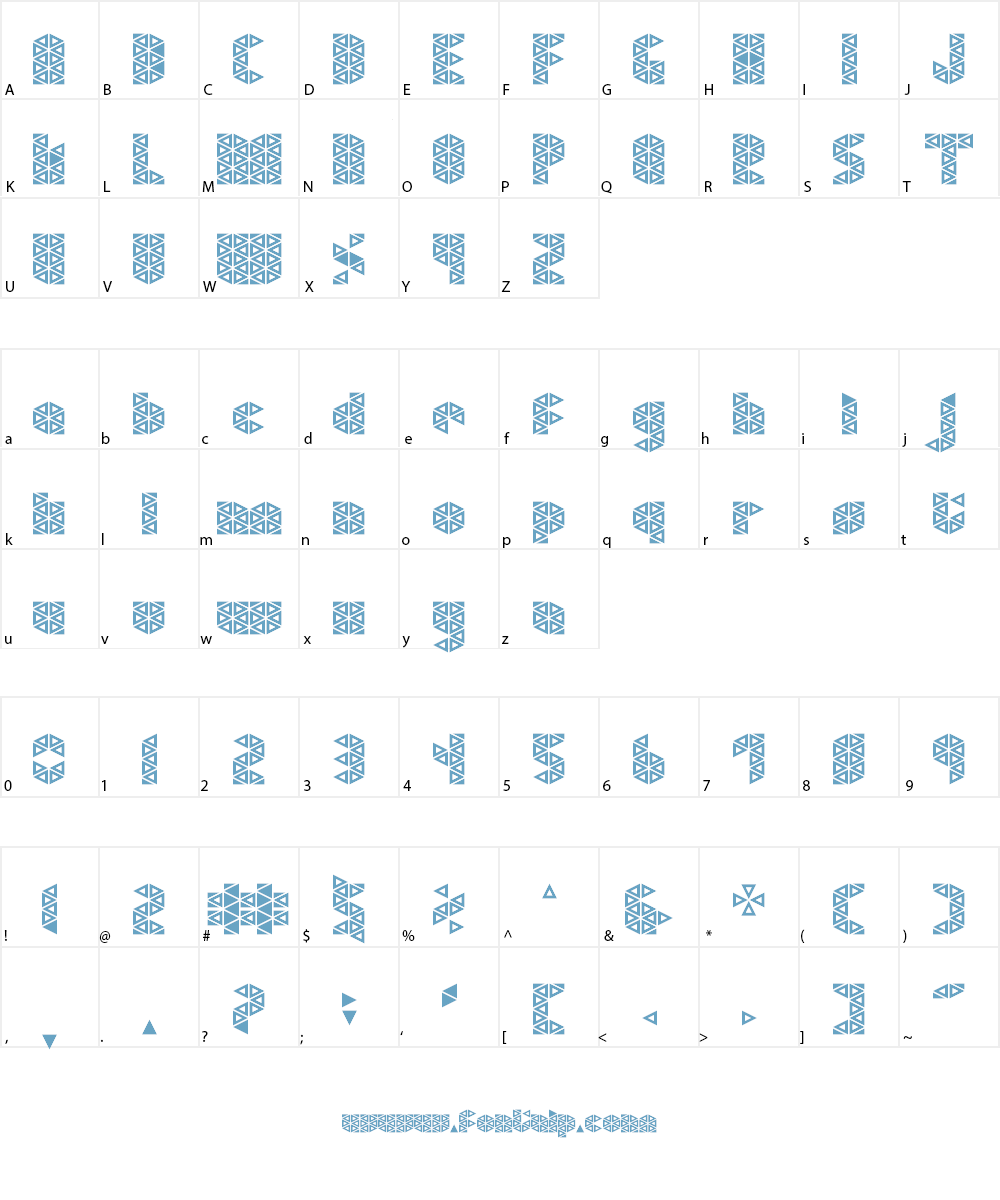
INGREDIENTS: Triangles, Distilled Water, Orange Juice, Citric Acid, Powdered Unicorn Horn, Metaphlogiston Clef-21 (to preserve optical clarity), Waifu Tears.
- - SHAKE BEFORE ENJOYING - -